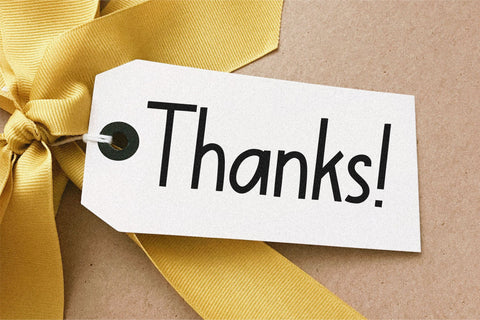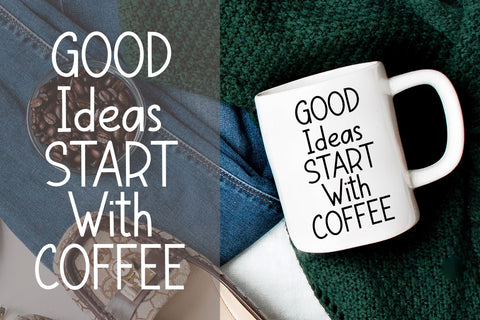
Magic Bread
Proudly Present, Magic Bread
Magic Bread is a Handwritten Display Font
Magic Bread is perfect for product packaging, branding project, megazine, social media, wedding, or just used to express words above the background.